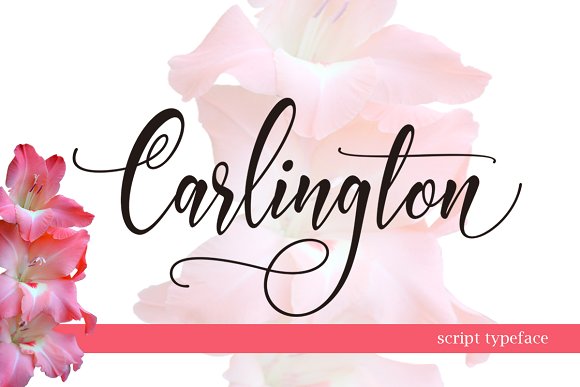
The Carlington Font: A Modern Script Font for Creative Minds
I’ll never forget the moment I stumbled upon the Carlington Script font. I was working on a project for a client who wanted a elegant, yet modern look for their branding. I had spent hours scouring the internet for the perfect font, but nothing seemed quite right. That was until I discovered Carlington Script – a game-changer with its unique blend of classic and contemporary styles.
As a designer, I’m always on the lookout for fonts that can help me elevate my projects. Here’s what I love about Carlington Script:
- ✨ Over 340 unique glyphs: This font has an impressive range of characters, making it perfect for creative projects that require a high level of customization.
- ✅ Modern script feel: Carlington Script has a fresh, modern look that’s perfect for branding, packaging, and advertising projects.
- 💫 OpenType features: This font supports advanced OpenType features, allowing you to create stunning text effects and styles.
While Carlington Script is an excellent font, there are a few quirks to be aware of:
- ⚠️ Limited kerning options: Some users may find the kerning options a bit limited, which can affect the overall flow of the text.
The Story Behind Carlington Script
Carlington Script was designed with the goal of creating a modern, versatile font that could be used for a wide range of creative projects. The designer drew inspiration from classic script fonts, while incorporating modern elements and styles to create a unique look.
| Font Name | Carlington Font |
| Author | Byuly Ayika |
| What is Carlington Script? | Carlington Script is a modern script font with over 340 unique glyphs. |
| Is Carlington Script suitable for body text? | While Carlington Script is a beautiful font, it’s best suited for headlines and titles rather than body text. |